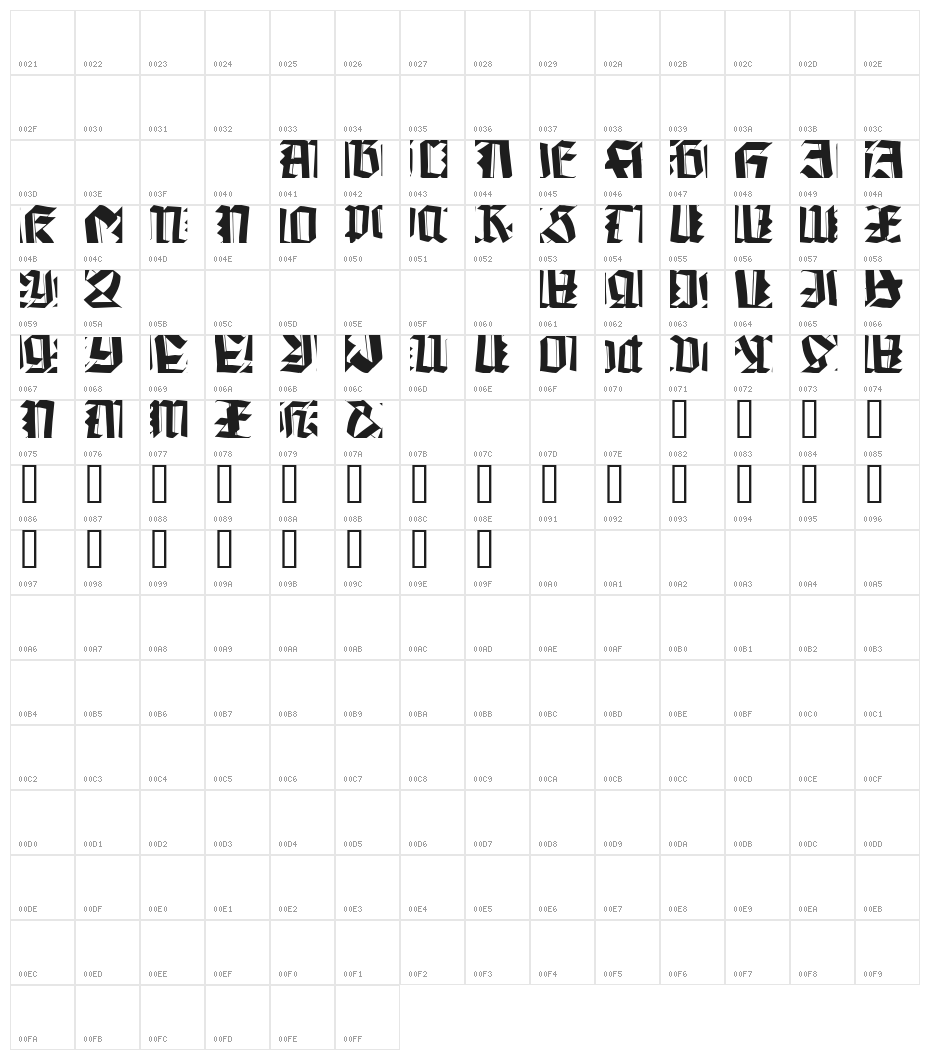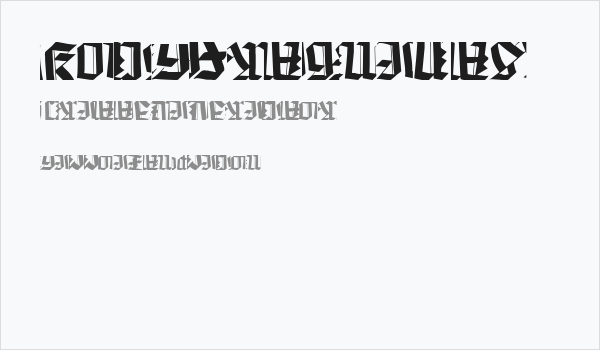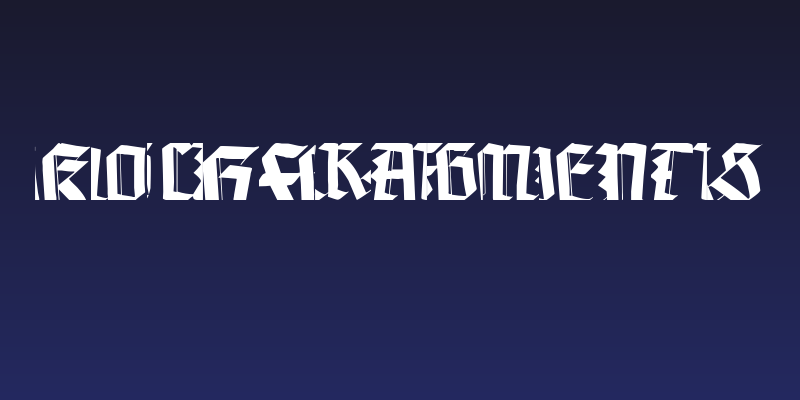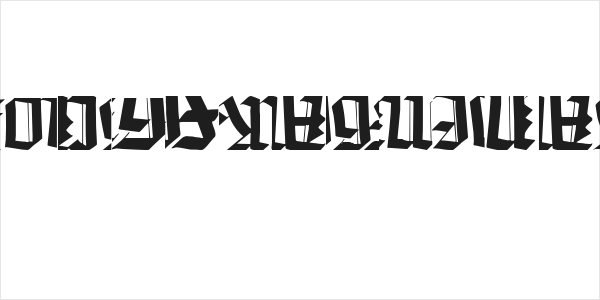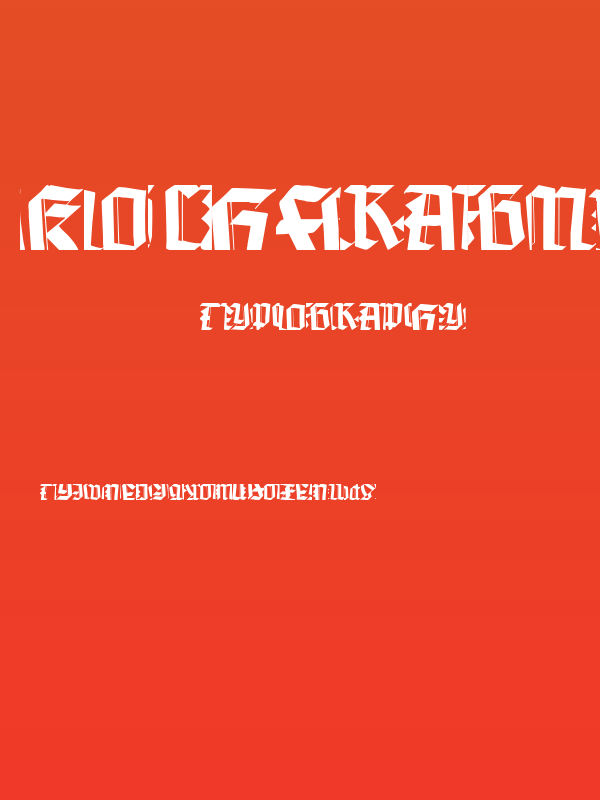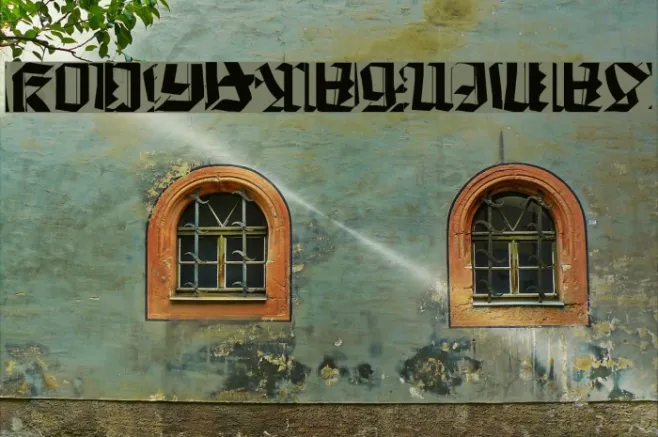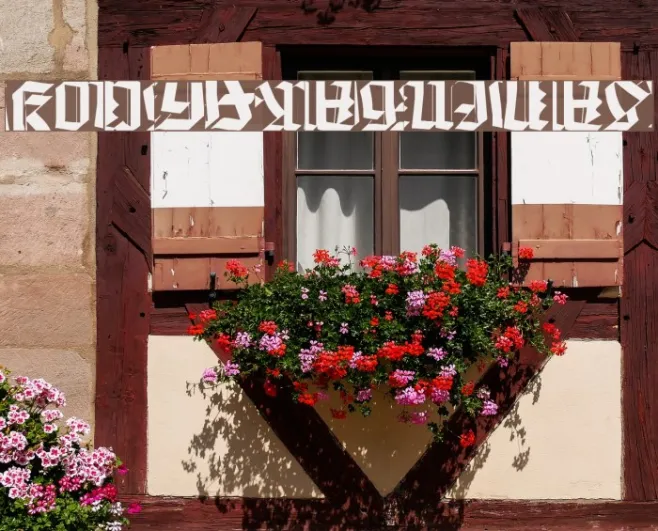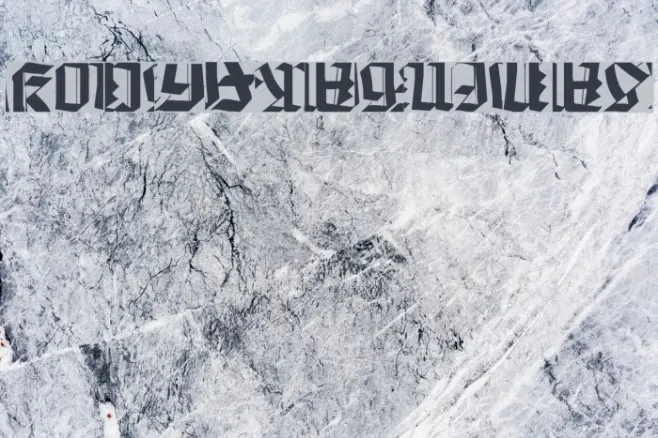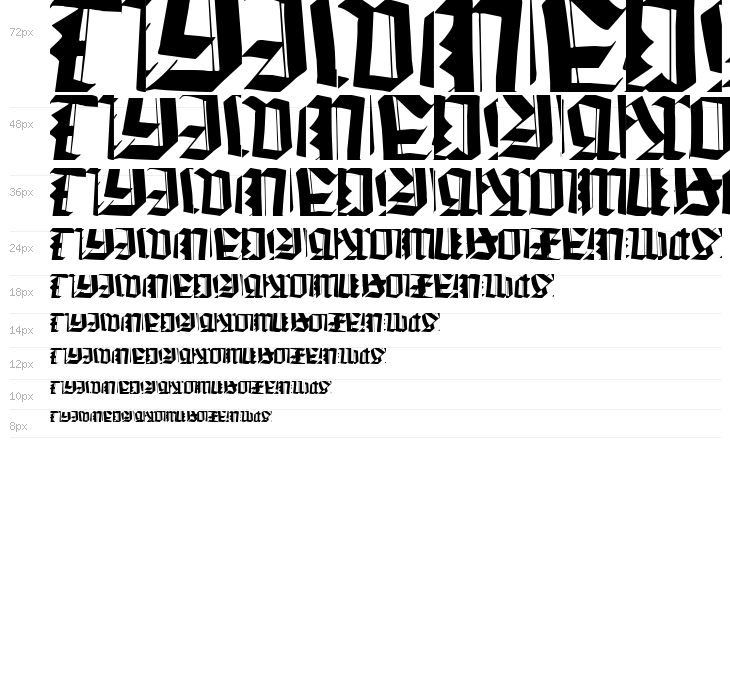
Kochfragments Font
Kochfragments Description
This font exhibits a highly stylized and fragmented design, characterized by sharp angles and bold strokes. The letters are constructed with a mix of solid and negative spaces, creating a dynamic and visually striking appearance. The uppercase and lowercase letters maintain a consistent style, with each character appearing as if it has been sliced or shattered, adding to the font's unique aesthetic. The numerals and special characters follow the same design principles, ensuring uniformity across all glyphs. This font's dramatic and edgy look makes it suitable for projects that require a strong visual impact.
| Overall Style | Modern, Edgy |
| Proposed Projects | Ideal for album covers, posters, branding for edgy or modern products, and any design needing a bold statement. |